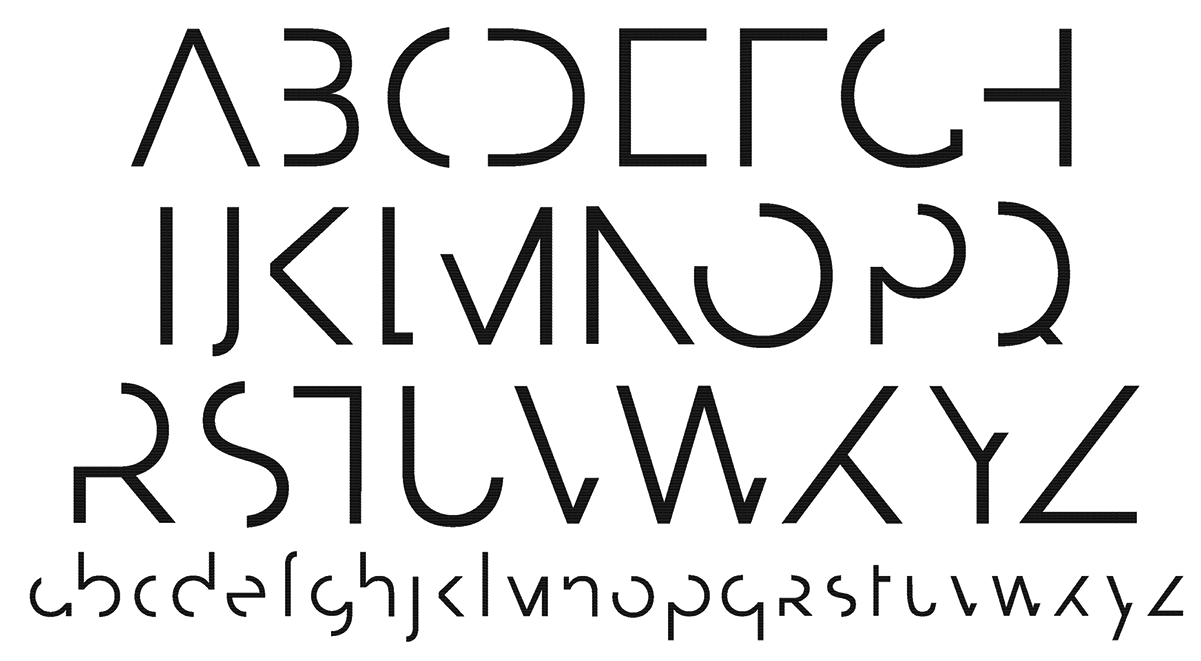
Molly Bumpous
Louisville, KY-based designer of the experimental minimalist sans typeface Moonwalk (2015), which was finished during her studies at the University of Louisville. |